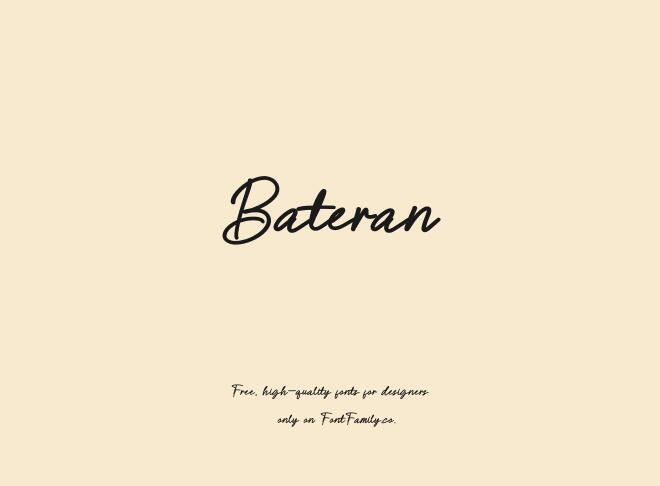
Bateran Font
Bateran Font is a modern and playful handwritten typeface crafted by Creative Tacos. Its rounded letterforms give it a friendly and approachable vibe, making it an excellent choice for designs intended to evoke warmth and friendliness. The font's unique character stems from its casual, free-flowing style that mimics natural handwriting. This makes Bateran Font perfect for designs like greeting cards, casual branding, logo designs, and playful advertising. Its modern feel also makes it a great choice for social media graphics and web design. When compared to other fonts, Bateran Font stands out for its versatility and unique charm. Whether you're a professional designer or a DIY-er, you'll find that Bateran Font adds an inviting and engaging touch to your projects.